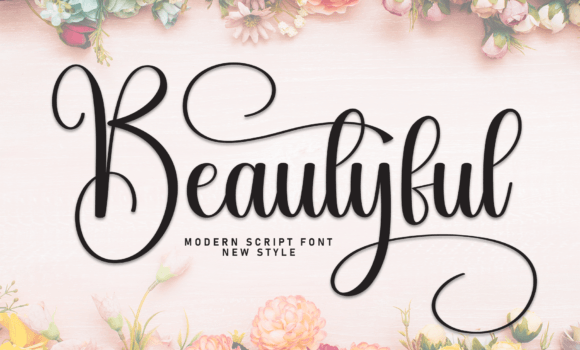
beautyful
Beautyful Font – Free Download Introduction to Beautyful Font Beautyful is a stylish and incredibly elegant script font. 📸 Preview Gallery 6 images 📌 Product Name Beautyful Font 👤 Author andikastudio 📂 Category Explore ⬇️ Download Beautyful Font FREE Free